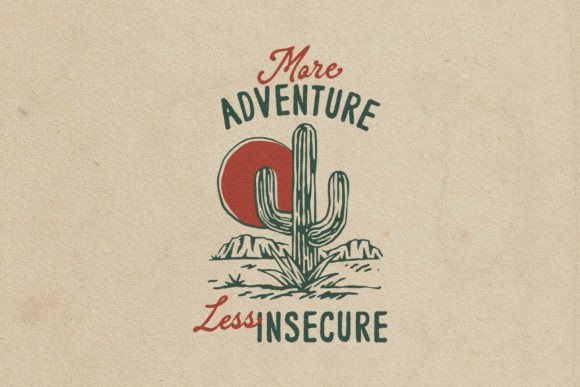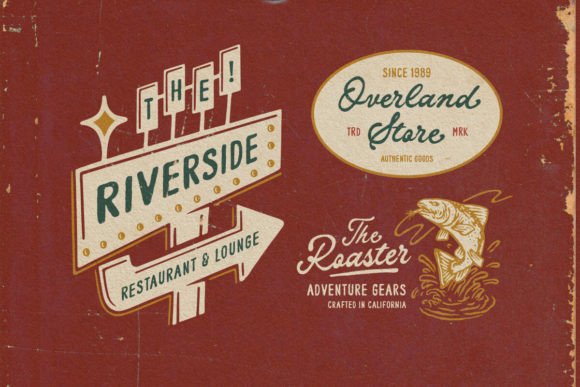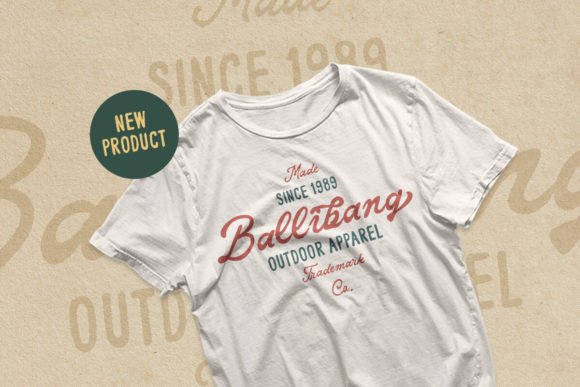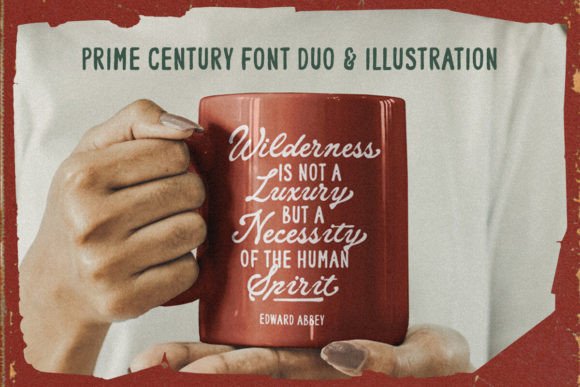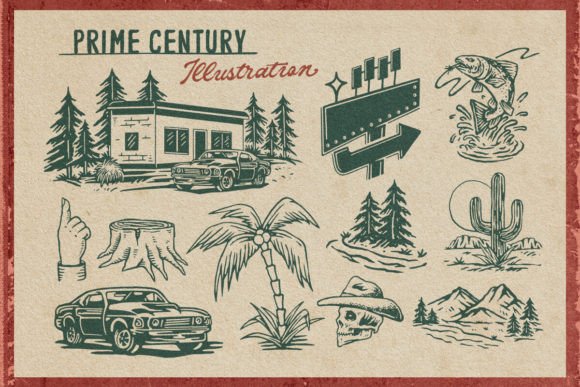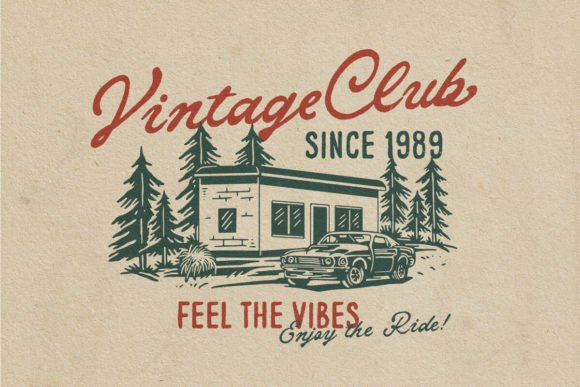
Introduction to Prime Century Font
As a designer, you’ve probably found yourself staring at a blank canvas, trying to conjure up the perfect font to bring your creative project to life. The moment of truth arrives when you stumble upon the perfect combination of style and sophistication – and that’s exactly what the Prime Century Font duo offers.
Imagine a world where classic elegance meets modern simplicity, where a script and sans serif font combination seamlessly blend to create a timeless look that’s sure to leave a lasting impression. The Prime Century Font is an organic hand-drawn font that’s perfect for logos, headlines, signage, and any other formal application where high-quality design is a must.
Key Features of Prime Century Font
- High-quality design resource ideal for creative projects, offering a unique and elegant aesthetic.
- Designed with precision, the Prime Century Font boasts a high-resolution display, making it perfect for both digital and print materials.
- With a size range of 12 to 72 points, this font is suitable for a variety of creative projects, from headings to body text.
- Its clean and modern design makes it an excellent choice for designers seeking a high-quality font for their projects.
Honest Review: Prime Century Font
As a designer, I’m always on the lookout for high-quality design resources to elevate my creative projects. Recently, I stumbled upon the Prime Century Font, and I’m excited to share my honest review with you.
- ✨ Elegant and modern design: The Prime Century Font boasts a sleek and sophisticated aesthetic that’s perfect for modern designs.
- ✨ High quality: The font is crisp and clear, making it ideal for printing and digital use.
- ⚠️ Limited character set: While the font is beautiful, the character set is relatively limited, which may be a drawback for designers who need a wide range of characters.
- ⚠️ Not suitable for all projects: The Prime Century Font may not be the best choice for projects that require a more playful or whimsical tone.
The Prime Century Font is a high-quality design resource that offers a unique and modern look for creative projects. It features a transparent background, making it easy to customize and integrate with your design.
Use the Prime Century Font in conjunction with other modern design elements to create a cohesive look. Experiment with different font sizes and colors to add depth and interest to your design.
The Prime Century Font is perfect for creating modern business cards, brochures, and website headers. It’s also great for designing social media graphics, presentations, and marketing materials.